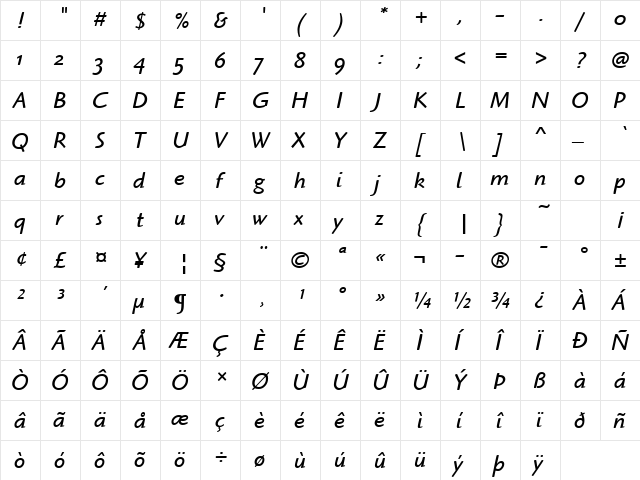
Highlander OS ITC TT BookItalic
Design Context for Highlander OS ITC TT Typeface
Highlander OS ITC TT offers clean, dependable letterforms without strong stylistic allegiance, making it a practical choice for designers who need flexibility. Its italic angle brings a sense of urgency and motion to the letterforms.
Pro Tip: Use Highlander OS ITC TT for emphasis, pull quotes, and subheadings where its slanted energy can add rhythm to the layout.